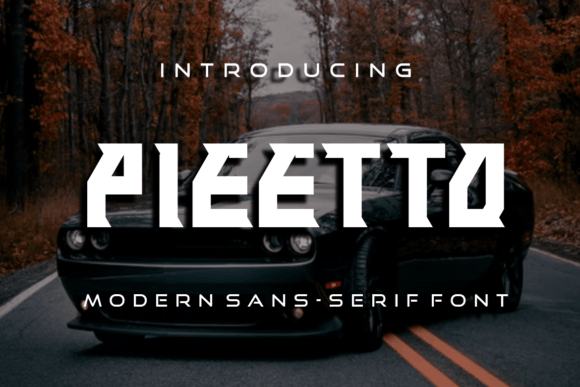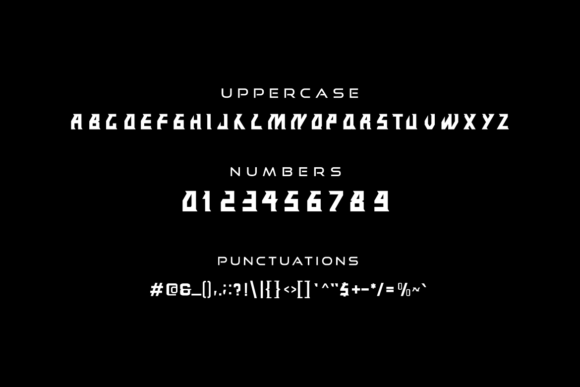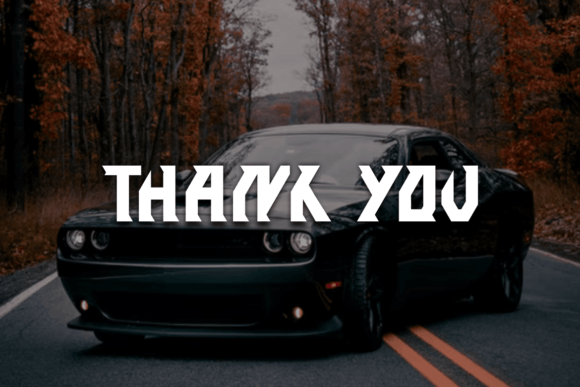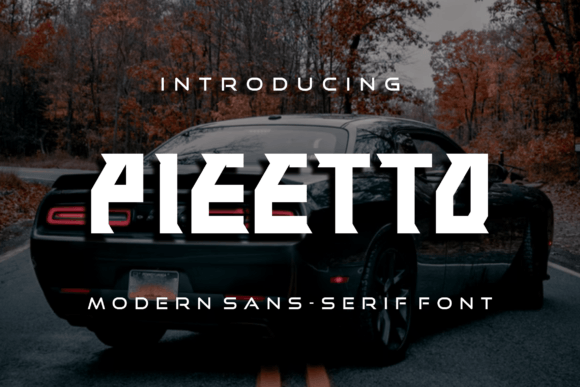
Pieetto
Pieetto: A Modern Slab Serif Font for Versatile Design
Pieetto is a modern slab serif font perfect for templates and presentations, books, gifts, packaging, name tags, and so much more. Its versatile design makes it suitable for a wide range of applications in both print and digital media.
Key Features of Pieetto
• Modern Design: Offers a contemporary look with clean lines and geometric shapes.
• Slab Serif Structure: Features distinctive serifs that add character and readability.
• Versatile Application: Ideal for both professional and creative projects.
• Clear Legibility: Maintains readability across various sizes and formats.
Ideal Uses for Pieetto
Pieetto’s unique characteristics make it particularly well-suited for:
When incorporating Pieetto into your designs, consider these tips:
• Use for both headlines and body text to showcase its versatility.
• Experiment with different sizes to highlight the font’s modern features.
• Consider pairing with sans-serif fonts for contrast in complex layouts.
• Utilize its clean design to create professional and polished looks.
Pieetto is an excellent choice for designers looking to add a modern and versatile slab serif font to their typographic toolkit. Its ability to adapt to various design needs makes it stand out in the world of typography. Whether you’re working on professional presentations, creating book layouts, or developing branding materials, Pieetto offers the perfect blend of style and functionality.
Furthermore, Pieetto’s contemporary design allows it to shine in various contexts. From sleek digital interfaces to elegant print materials, this font can elevate your projects with its distinctive style. Its modern yet readable appearance works particularly well in designs that require a professional and engaging mood.
In conclusion, Pieetto is a font that truly captures the essence of modern versatility in typography. Its ability to work well across a wide range of applications showcases its flexibility. For those looking to add a touch of contemporary charm to their work, Pieetto can enhance themed creations with its distinctive style. It’s the perfect choice for designers seeking to make a polished, stylish impact across a wide range of creative and professional projects.